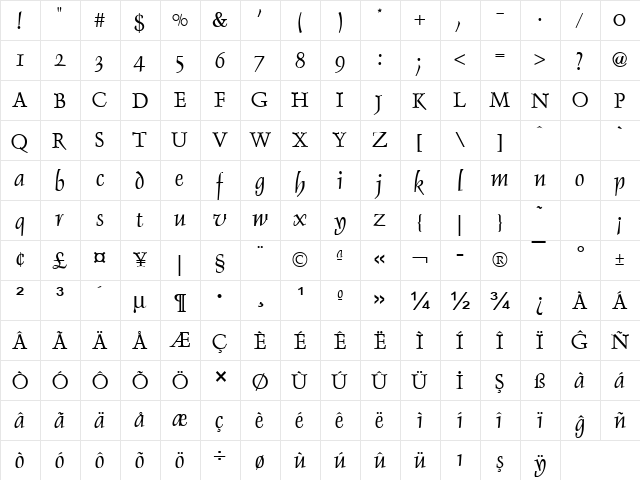
Dolphin_TR Normal
Design Context for Dolphin_TR Typeface
Dolphin_TR offers clean, dependable letterforms without strong stylistic allegiance, making it a practical choice for designers who need flexibility.